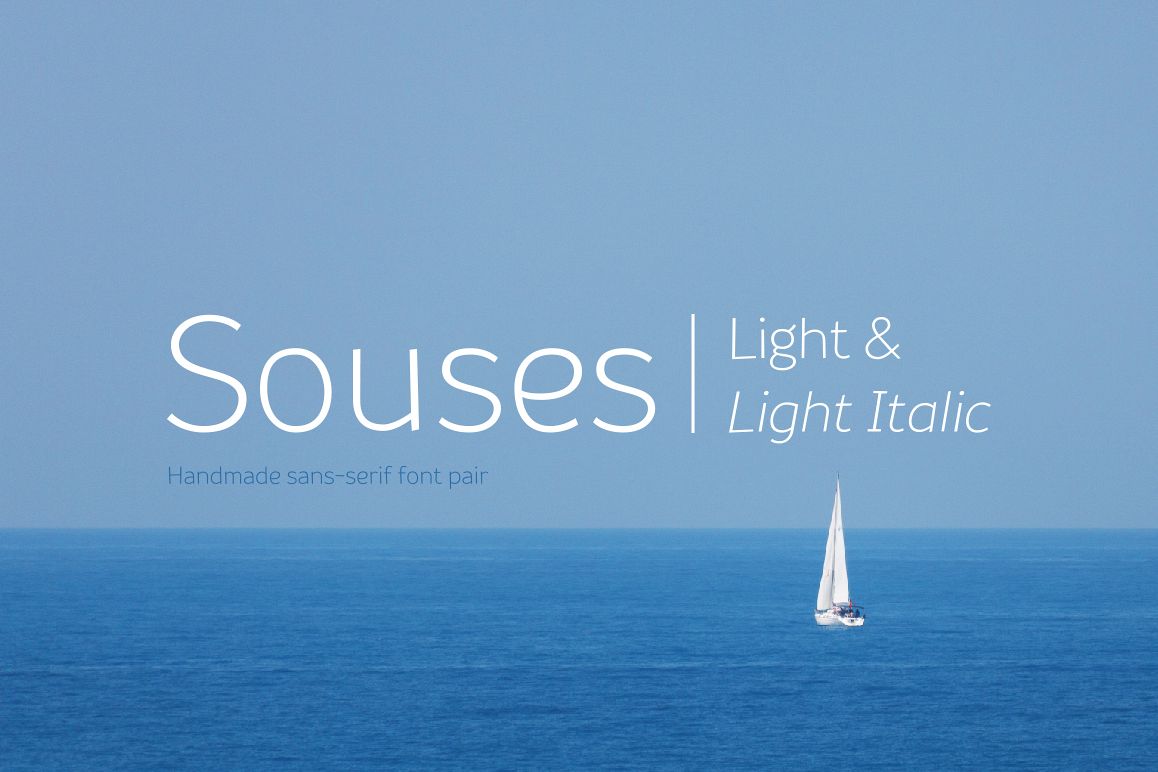
Souses — Light & Light Italic
Souses Light Italic
Souses Ligh
Meet the designer handmade non-serif Souses Bold and its slanted version Souses Light & Light Italic.
Sometimes we only need a few faces to make our creative ideas come to live. For this specific purpose we've split some of our popular font families into all-sufficient font pairs.
Souses — original fonts, which are made by hand. Souses ideal for use in themes: ecology, village, natural, handmade & toys. Handmade style of the fonts — an advantage that will create loyalty to your products & company.